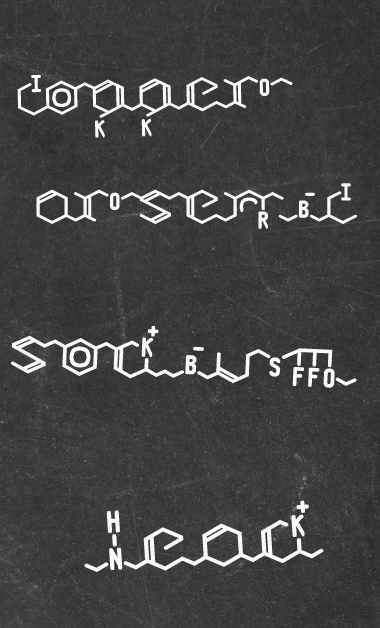
Some of the characters are difficult to read but forget that. Such brilliant concept.
One of the most exciting entries. I'm in awe, even if i second Thalamic on some legibility issues.
Thanks to both of you, guys. I know that a few glyphs like 'r' or 'k' are crap, but i didn't want to change the chemistry markup rules too much. anyway, if you look from a distance, the general shapes do show up. I really tried my best.
Wow! I was into chemistry back in high school, but it seems I've forgotten everything, except for that benzene (o) maybe. Terrific!!! FAV!
Clever and creative, I like it! It's not as legible (as thalamic said) but it's beautiful, never mind legibility ;)
Great concept and nice font. Work on it, please.
A clever concept ... perhaps it might be more legible without the word connectors. 10/10
A very interesting concept, very creative. I remember that my chemistry teacher loved to write meter-long chains. With this font I can do that, too.
@D-Sheep - I agree with p2pnut. As a fellow chemist, I say remove those carbon connectors to separate the molecules! :^)
@Goatmeal - the font was designed so that it can be a legit entry in the current competition. I agree with everyone, that you wouldn't probably use it often because of the bad character recognition.
I might make a clone aside the competition with no links and probably a bit taller (comp. rules...). It can also be completely overhauled to a more hexagonal font to improve legibility, but then it wouldn't be as chemical as it is now. And moreover, omitting the links would mean losing a reason to name it "Macromolecular".
Such a genius!!! Not so care about the legibility, you've done an amazing job :)
Great job. Chemistry would seem very interesting. 10/10.
It just goes to show that my Chemistry teacher was right when he told me "you'll never make a chemist!" (I must admit that my reply didn't impress him much ... "I don't want to be a chemist, sir").
Really love the idea behind this one!
If you want read it, you can read far from your computer :)
OMG, what a wonderful unforgettable chemical madness‼
This is such a cool idea! Genius